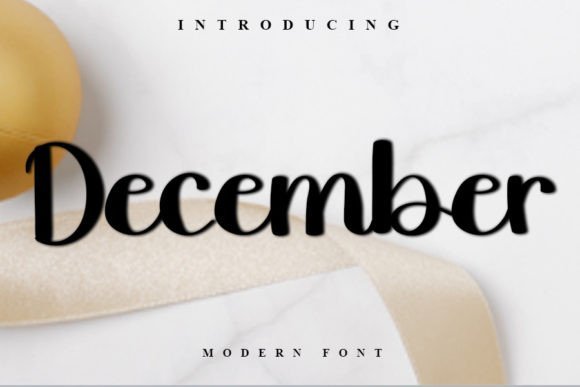
The Perfect Font for the Festive Season
As designers, we’ve all been there – staring at a blank screen, trying to come up with the perfect combination of colors and typography to capture the essence of a project. It’s moments like these that make us appreciate the power of a great font. And, let’s be honest, who doesn’t love the magic of the holiday season? For designers looking to create something truly special, I’d like to introduce you to the December Font.
This beautiful font is designed to bring a touch of festivity to your designs, making it perfect for projects like YouTube banners, wedding invitations, and holiday-themed crafts. With its fresh and elegant look, the December Font is a valuable asset for any designer looking to add a bit of sparkle to their work. Whether you’re a seasoned pro or just starting out, this font is sure to be a game-changer for your design projects.
December Font Key Features
- Font Size: The font family includes 6 font weights, ranging from Thin (100) to Black (900), providing flexibility for various design needs.
- Character Set: December Font includes a comprehensive character set, covering Latin, Cyrillic, and Greek alphabets, making it suitable for multilingual designs.
- Unique Characteristics: December Font features a modern, elegant design with subtle flair and rounded edges, giving it a unique and sophisticated look.
Designer Review: December Font
December Font is a beautiful script font that adds a touch of elegance to any design project. It’s perfect for creating invitations, wedding stationery, or any other design that requires a sophisticated and whimsical feel. ✨ The font’s flowing lines and intricate details make it a joy to work with, and its versatility means it can be used in a variety of contexts.
One of the standout features of December Font is its legibility, even at smaller font sizes. This makes it an excellent choice for body text or headings, where clarity is essential. ✨ The font also includes a range of ligatures and swashes, which can be used to add a touch of personality to your designs.
- ⚠️ December Font may not be the best choice for designs that require a bold, sans-serif font. Its script style can make it difficult to read at larger font sizes.
- ⚠️ The font’s intricate details can make it difficult to pair with other fonts, as it may compete for attention.
Overall, December Font is a beautiful and versatile font that is perfect for designers who want to add a touch of elegance to their projects. While it may have some limitations, its strengths far outweigh its weaknesses, making it a great addition to any font collection.
Alex Brush is a stunning, hand-painted script font that adds a touch of whimsy and personality to any design. It is perfect for creative projects, such as children’s books, greeting cards, and social media graphics.